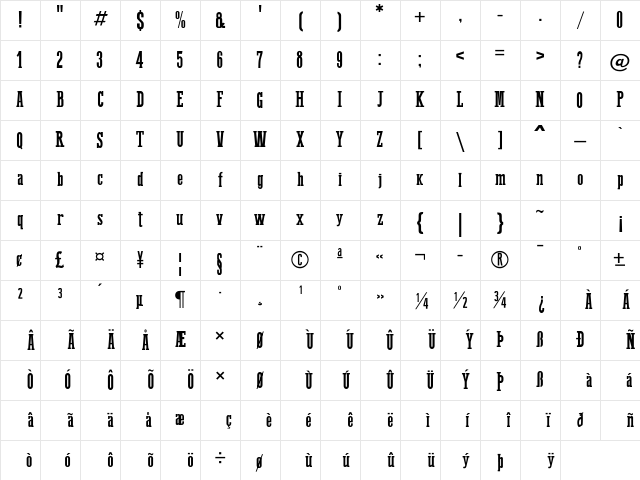
Western Bang Bang Clean Regular
Design Context for Western Bang Bang Clean
Western Bang Bang Clean echoes the hand-painted signage and woodblock typography of the American frontier, with a warm, rugged personality.
Font Pairing: Combine Western Bang Bang Clean with a simple slab or neutral sans - period-accurate companions reinforce the vintage feel without competing for attention.
Pro Tip: Use Western Bang Bang Clean for short, impactful bursts of text - it shines in poster headlines and product names rather than extended copy.